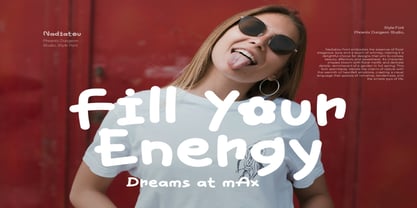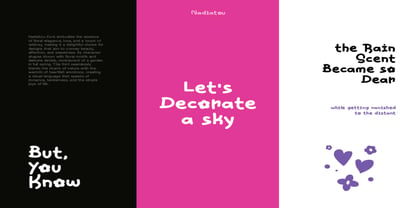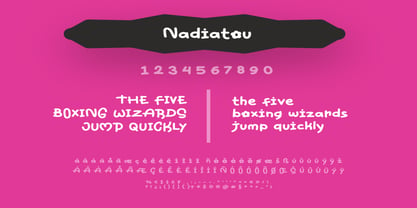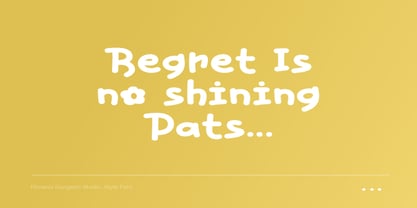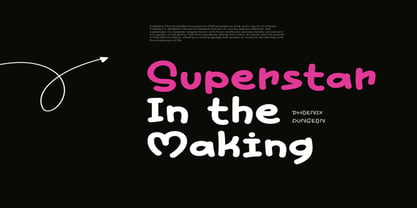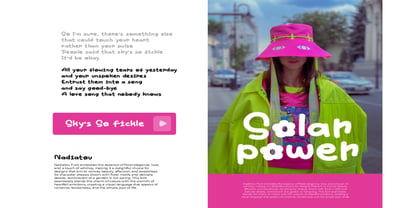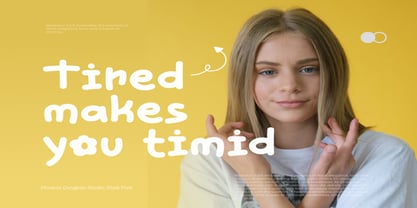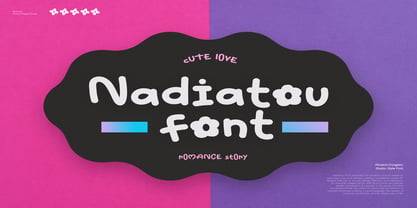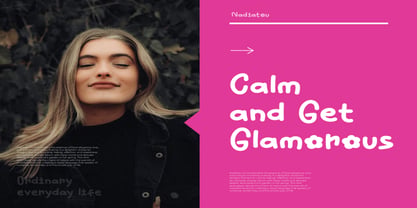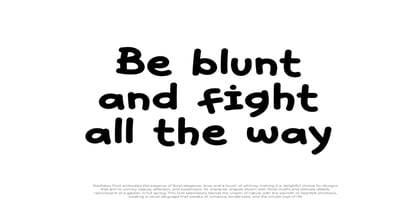
Nadiatou
by Phoenix Group
The Nadiatou Font Family was designed by Alif Naufal Muzakki and published by Phoenix Group. Nadiatou contains 1 styles. More about this family
Nadiatou Font is a sweet and whimsical typeface that captures the essence of love, romance, and playful charm. With its rounded, bubbly shapes and floral-inspired touches, this font radiates joy and tenderness, making it perfect for Valentine’s cards, wedding invitations, cute logos, kids’ projects, or any design that needs a romantic yet cheerful vibe. Its unique personality blends softness and fun, creating visuals full of affection and heartfelt emotions.
Designers: Alif Naufal Muzakki
Foundry: Phoenix Group